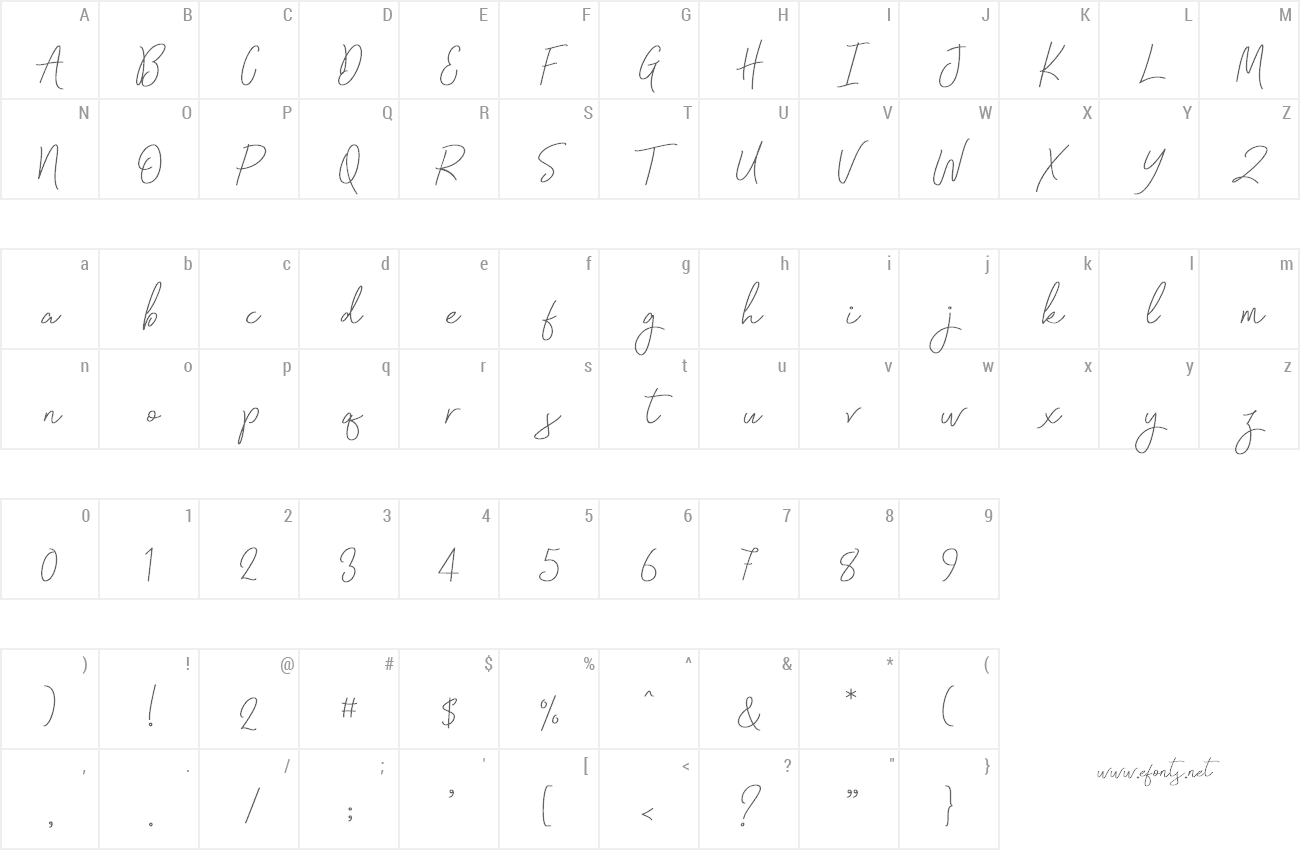
| Font name: | Signatura Monoline Script |
| Author: | Ianmikraz |
| Note by Ianmikraz | |
Signatura Monoline Free Typeface � Font Free Commercial Use Signatura Monoline Free Font Typeface is a new Modern Calligraphy Typeface Fonts collection from Ianmikraz studio. Combines from copperplate to contemporary typeface, classic, beauty and elegant touch. You can Donate to help me create more awesome Free Typeface here https://paypal.me/ianmikraz Visit my site at http://ianmikraz.com/freebies/ for more freebies. Thanks IanMikraz |